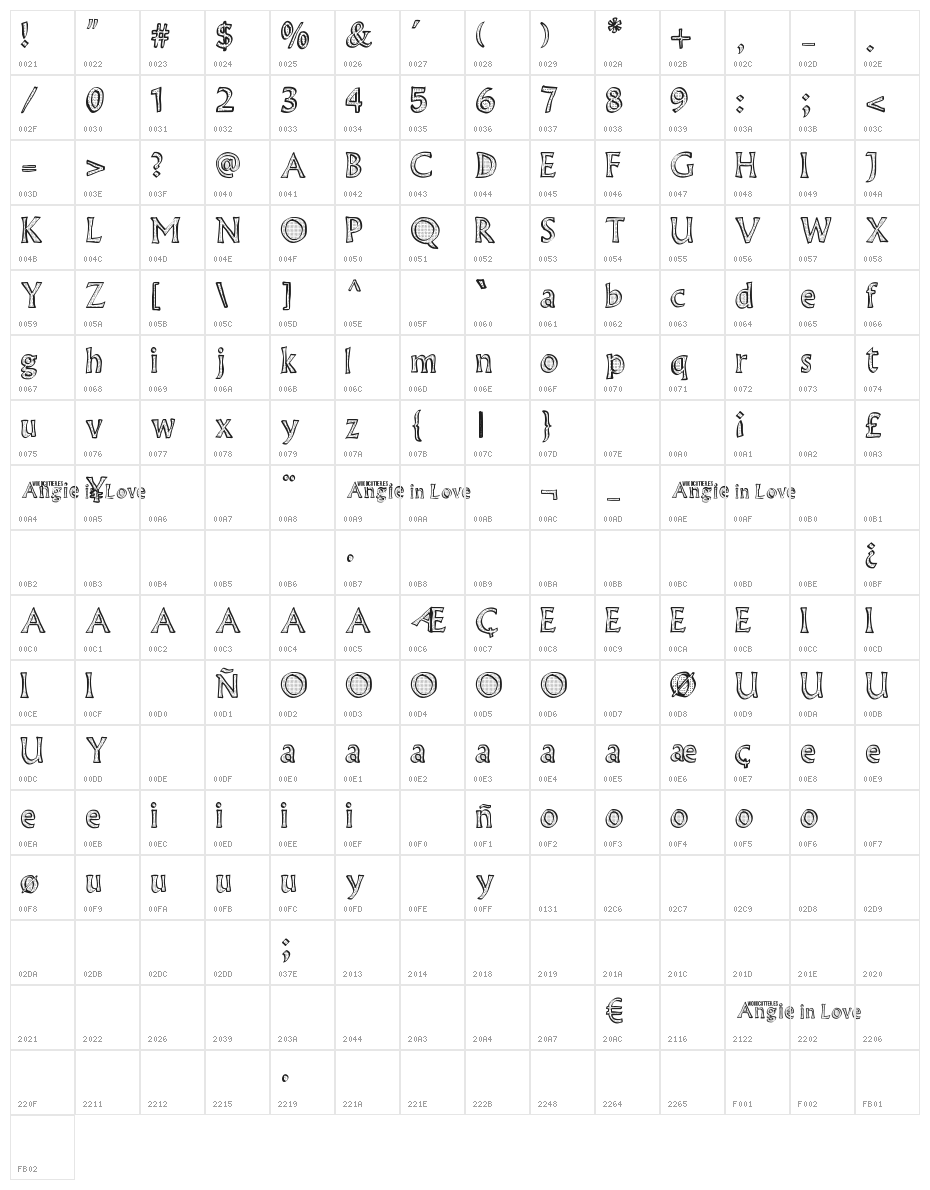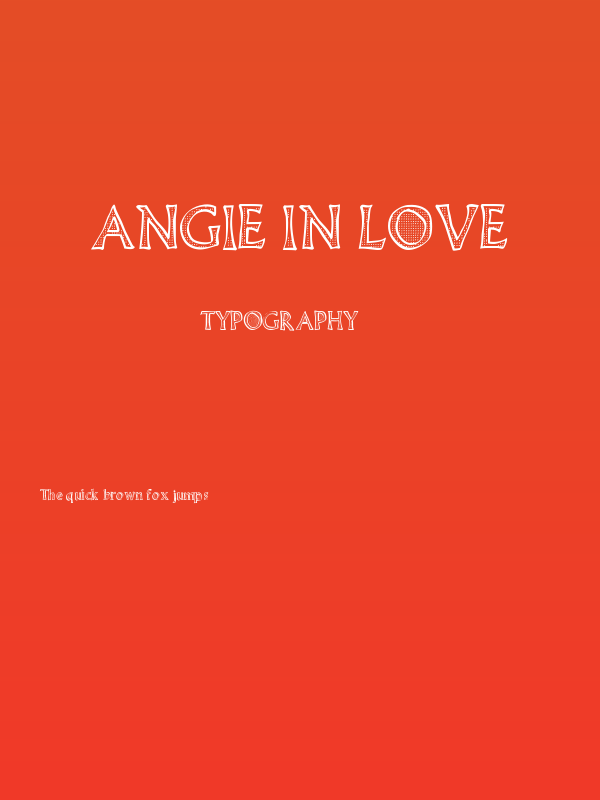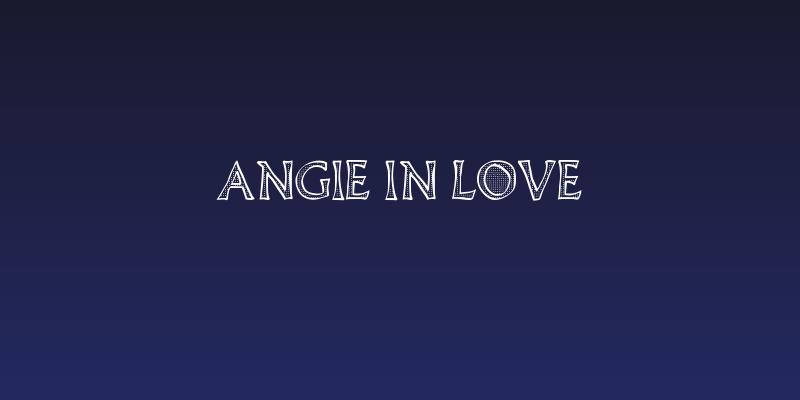
Angie in Love Font
Angie in Love Description
This font features a playful and whimsical design with a hand-drawn aesthetic. Each character is outlined with a bold, uneven stroke, and the interiors are filled with a dotted pattern, giving it a textured and lively appearance. The letters have a slightly irregular shape, adding to the casual and fun vibe. The font maintains a consistent style across uppercase, lowercase, numbers, and special characters, making it versatile for various creative projects. Its unique style is ideal for designs that require a touch of personality and charm.
Overall StyleWhimsical and playful
Proposed ProjectsPerfect for children's books, greeting cards, playful branding, and creative posters.